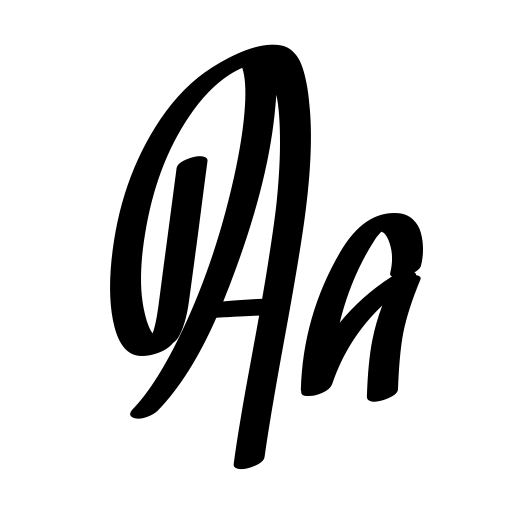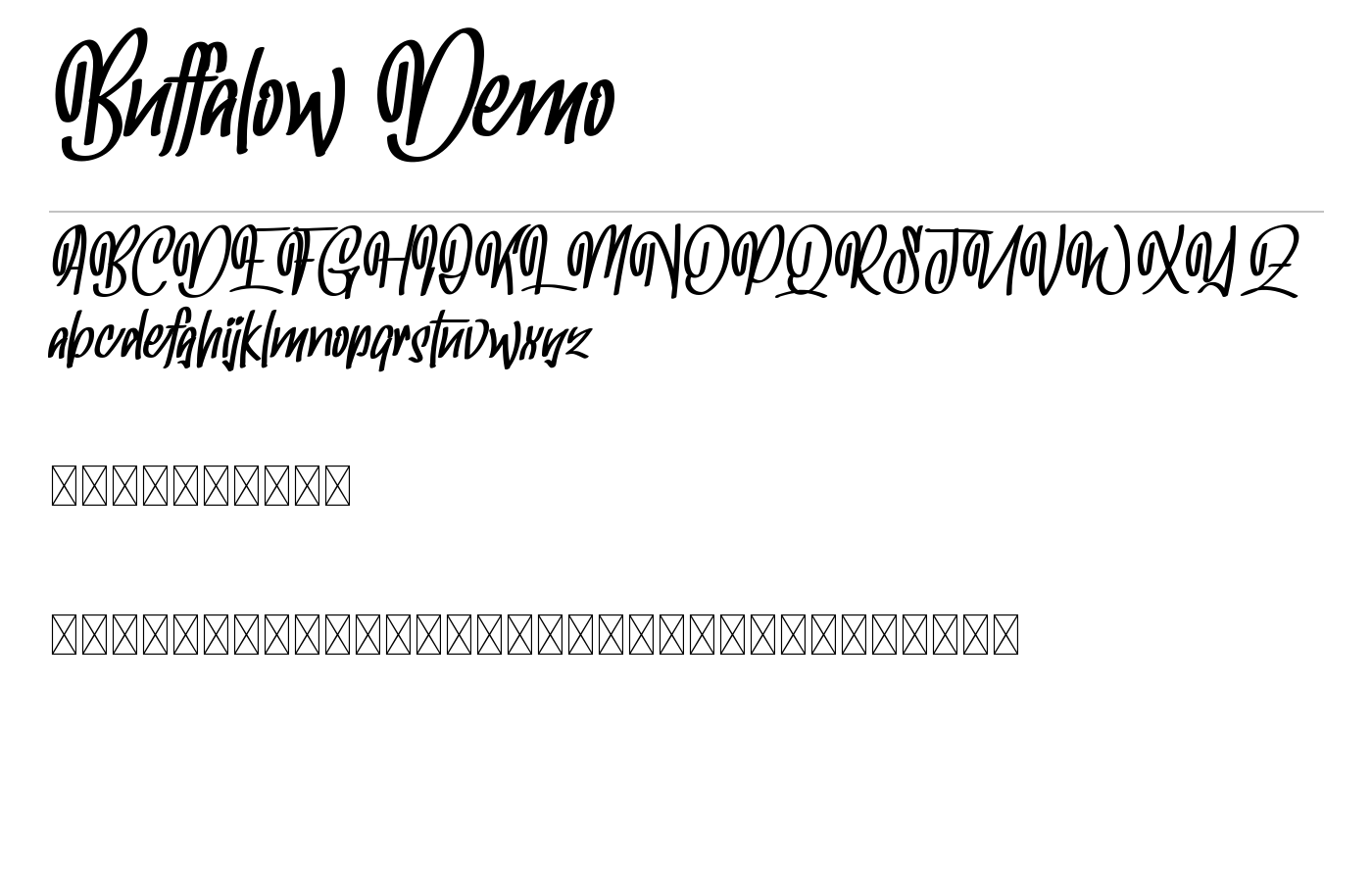
Buffalow Demo is a lively, handwritten script font with an elegant, flowing style that combines a modern calligraphic touch with bold, confident strokes. Its tall, narrow letterforms and playful curves make it ideal for creative branding, invitations, and headlines where a personal, artistic vibe is desired. This font works best in display contexts, adding personality and flair to designs needing a trendy yet sophisticated hand-lettered feel.
Buffalow Demo Font
About Buffalow Demo Font
| Designer | Fajara Saepul Rohman & Suci Anita |